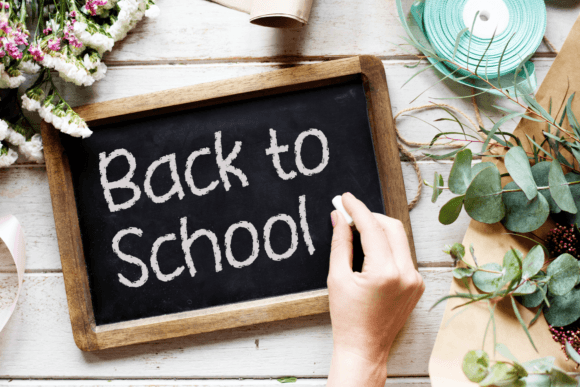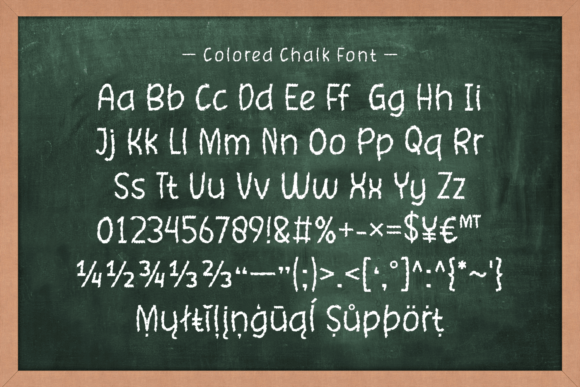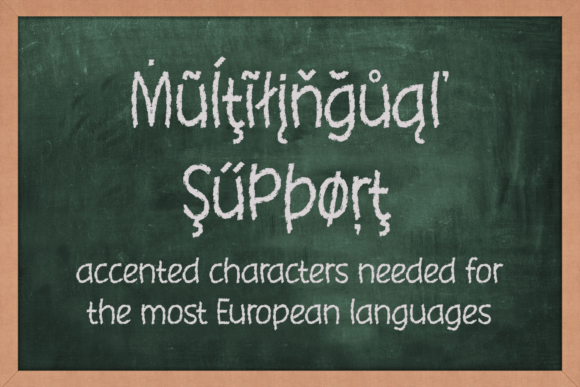
Introducing Colored Chalk Font: Add a Touch of Nostalgia to Your Designs
Are you looking for a font that can bring a sense of nostalgia and playfulness to your designs? Look no further than Colored Chalk, a friendly handwritten font that captures the charm of being written on a chalkboard. With its unique and playful strokes, this font is perfect for adding a touch of warmth and informality to your projects.
The Charm of Colored Chalk Font
Colored Chalk is a carefully crafted font that mimics the look and feel of handwritten chalk writing. Its soft, rounded edges and varying line widths give it a distinctly human touch, making it perfect for creating a casual and inviting atmosphere in your designs. Whether you’re working on a menu, sign, or any other project where you want to evoke a sense of nostalgia, Colored Chalk is the ideal choice.
Colored Chalk is a versatile font that can be used in a wide range of design projects. Designers will love how easily it can be integrated into their work, adding a touch of personality and whimsy to any layout. Crafters, on the other hand, will appreciate how well it pairs with DIY projects, such as handmade cards, posters, and other paper crafts.
Key Features of Colored Chalk Font
• Handwritten style: Colored Chalk has a distinctly handwritten feel, with soft, flowing strokes that give it a personal touch.
• Playful and whimsical: This font is perfect for adding a touch of playfulness and whimsy to your designs.
• Easy to read: Despite its informal style, Colored Chalk is surprisingly easy to read, making it perfect for use in body text.
• Multilingual support: This font supports multiple languages, making it a great choice for designers working on international projects.
Use Cases for Colored Chalk Font
So, what can you use Colored Chalk for? The possibilities are endless! Here are a few ideas to get you started:
• Menus and restaurant designs: Add a touch of nostalgia to your menu designs with Colored Chalk.
• Signs and posters: Create eye-catching signs and posters with a personal touch using Colored Chalk.
• Handmade cards and invitations: Add a touch of whimsy to your handmade cards and invitations with this charming font.
• Social media graphics: Use Colored Chalk to create engaging social media graphics that stand out from the crowd.
Tips for Using Colored Chalk Font
To get the most out of Colored Chalk, here are a few tips to keep in mind:
• Pair with bold colors: Colored Chalk looks great paired with bold, bright colors that match its playful style.
• Experiment with textures: Add an extra layer of depth to your designs by experimenting with textures, such as chalkboard or paper textures.
• Use it sparingly: While Colored Chalk is a beautiful font, it can be overwhelming if used too much. Use it sparingly to add a touch of personality to your designs.
Colored Chalk is a unique and charming font that can add a touch of nostalgia and playfulness to your designs. With its handwritten style, playful strokes, and ease of use, it’s perfect for designers and crafters looking to create a casual and inviting atmosphere in their work. So why not give it a try and see how Colored Chalk can bring a touch of classic school-day charm to your designs?